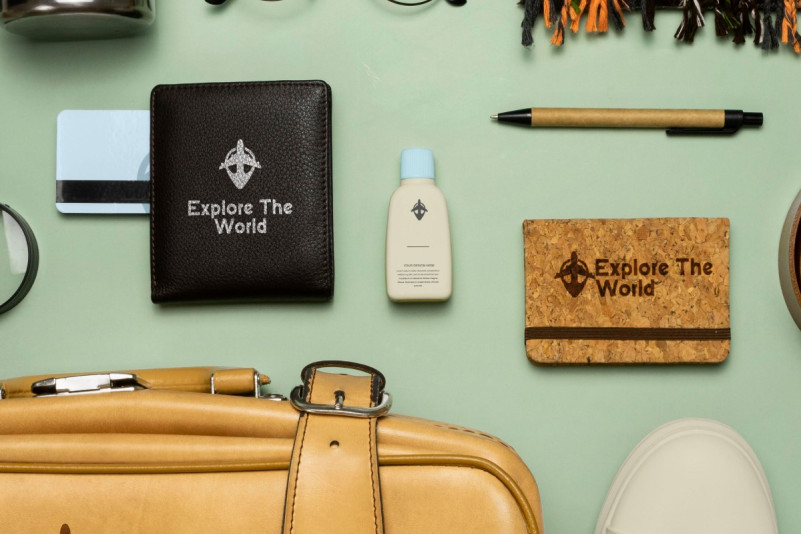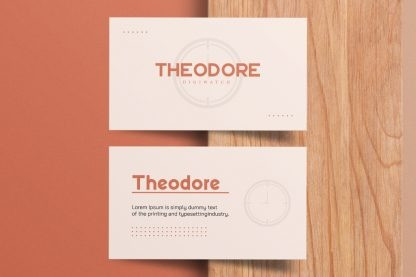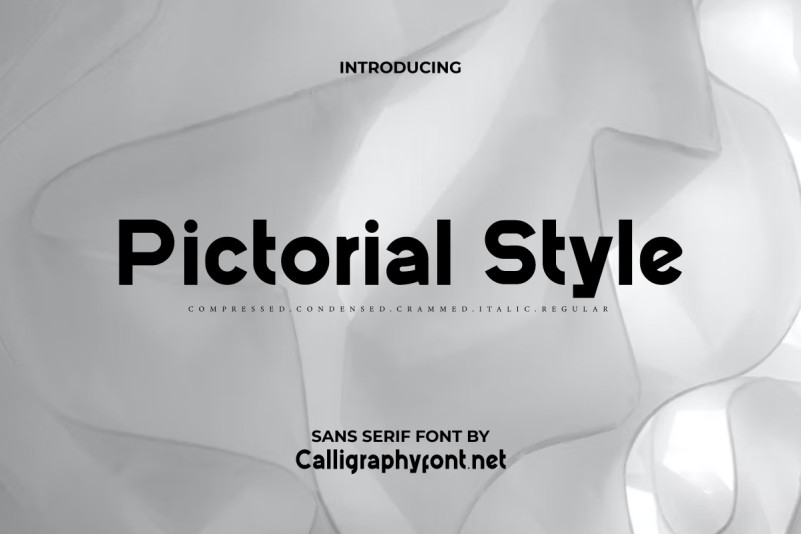
Pictorial Style Font
Pictorial Style Sans Serif Font is a unique sans serif font with five different styles offered, special created by CalligraphyFonts. This font can enhance various creative projects, such as body text, brochure, business card, embossed design, header, label, screen print, sticker, watermark, and any project that requires a bold look.
Pictorial Style Font consists of five styles, Regular, Compressed, Condensed, Crammed, and Italic which will be perfect for any industry including : accessories, art gallery, artisan, café, clothing brand, cooking broadcast, printing, publishing, restaurant, etc. It is perfect in form and legibility which makes it a great choice for main text or in combination with other font types.